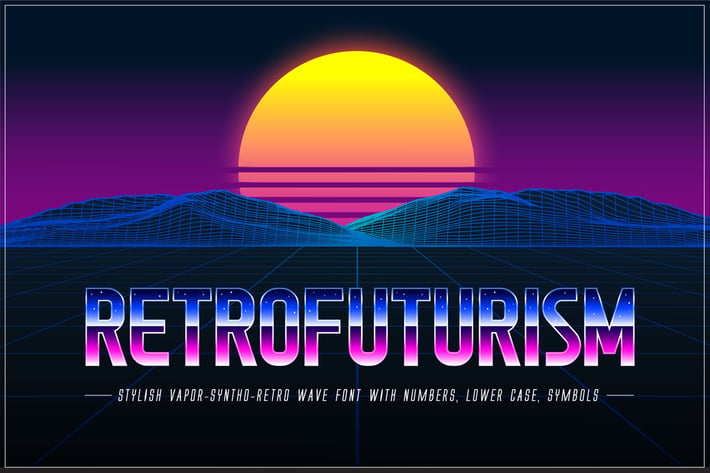
Retrofuturism OTF Vapor Wave Font
This pack contains Retrofuturism trendy Vaporwave, Synthwave, Retrowave Styled Color OpenType Font in .OTF file format with lower-case, symbols and numbers (Adobe Illustrator 2018+). Each letter and number also introduced in EPS, big size PNGs and PSD's with transparency.
- Redesigned font. Now it's more futuristic and retro at the same time.
- Updated font proportions